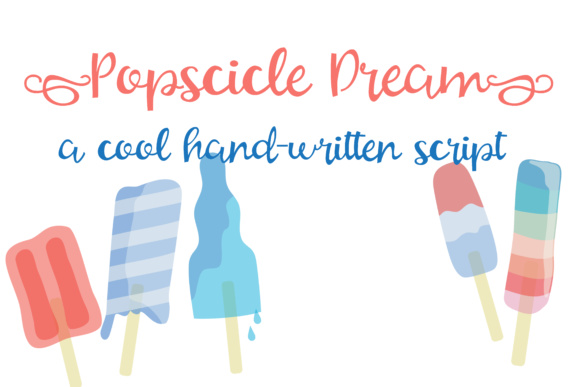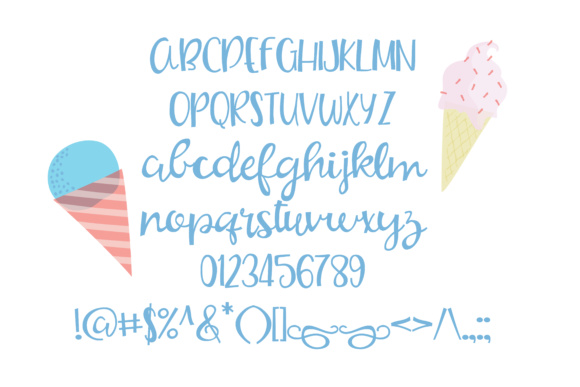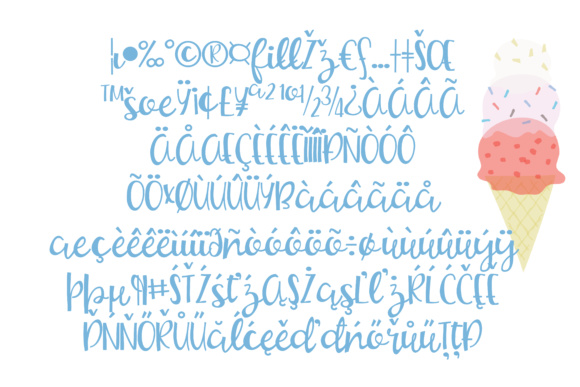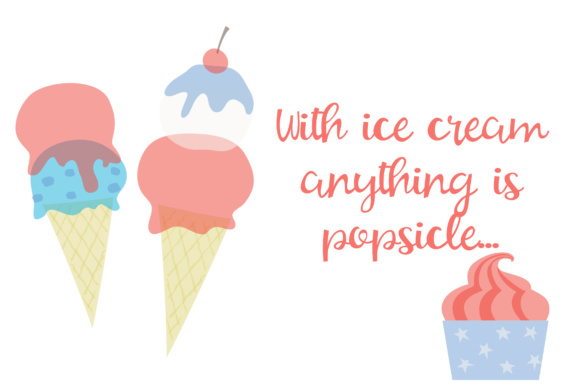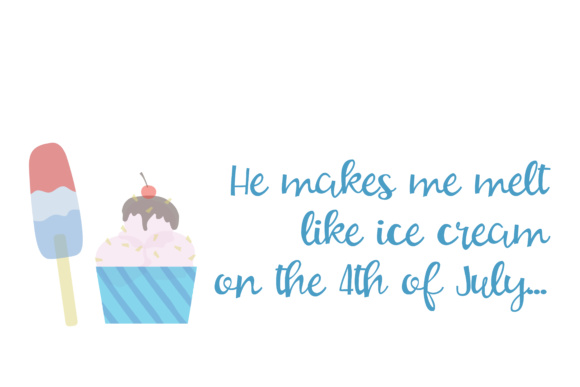
Popsicle Dream Font
About Popsicle Dream Font
Popsicle Dream is a pretty and feminine handwritten script, ideal for use in fun and bright projects! Add a light-hearted charm to your work with this font that has swirly elements and a girly appeal.